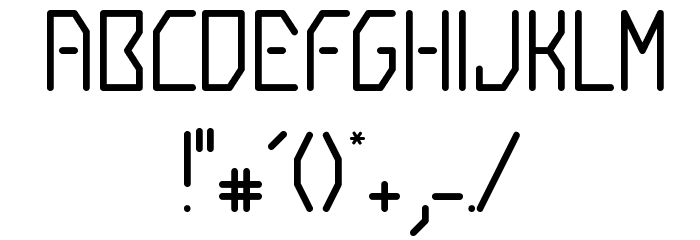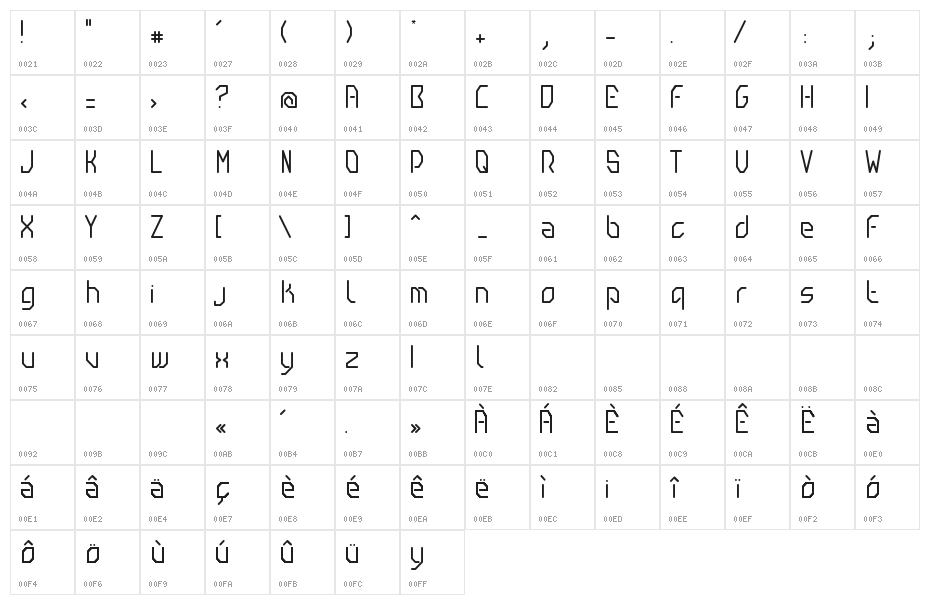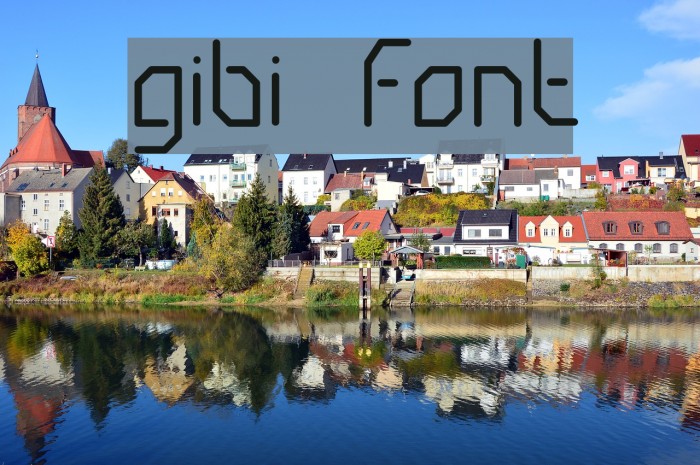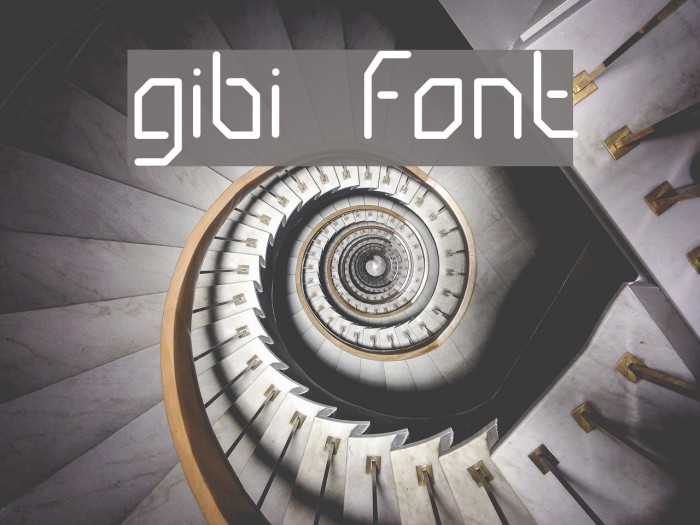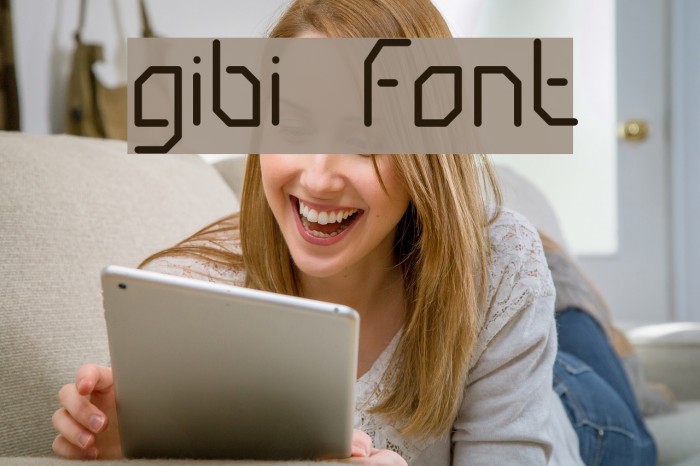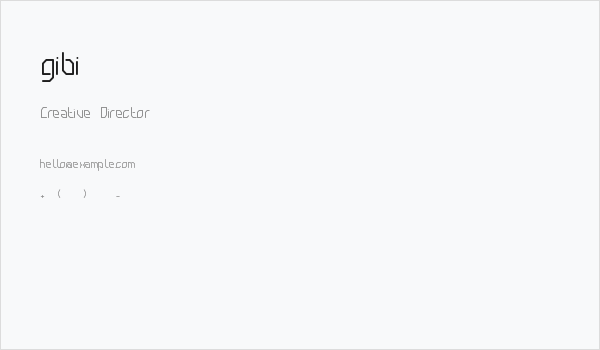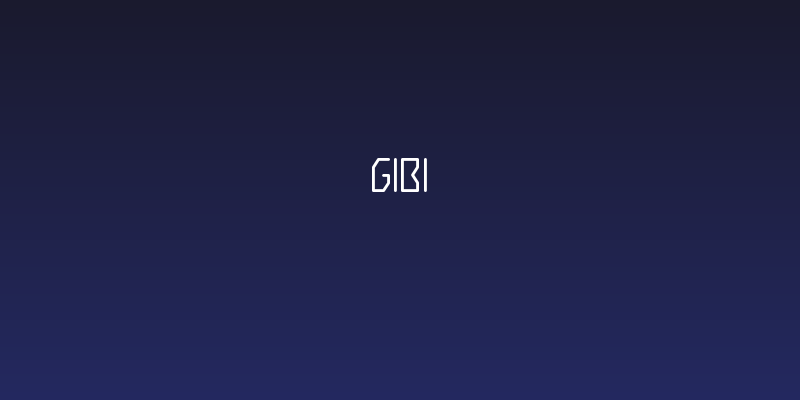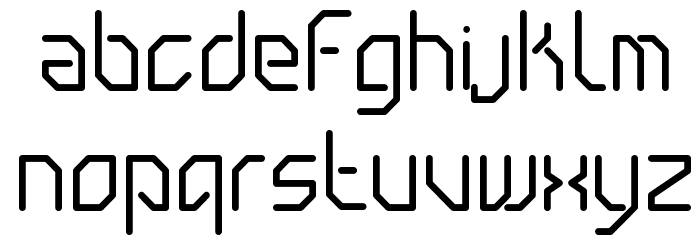
gibi Font
gibi Description
This font features a geometric and futuristic design, characterized by its angular and interconnected strokes. Each letter is crafted with a consistent line weight, creating a uniform appearance across both uppercase and lowercase characters. The font's structure is reminiscent of digital or sci-fi aesthetics, with a clean and modern look. The characters are slightly condensed, which enhances the compact and efficient feel of the typeface. Special characters and numbers maintain the same stylistic approach, ensuring a cohesive visual identity throughout the font set.
| Use Case | Logos, Headlines, Digital interfaces |
| Proposed Projects | Ideal for technology branding, sci-fi themed projects, digital interfaces, and modern graphic design. |